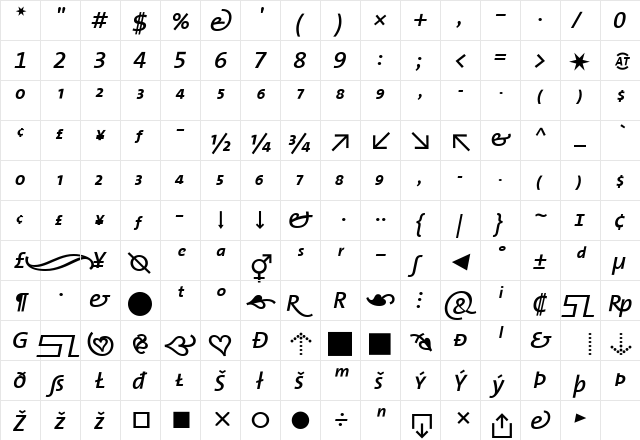
TheSans SemiBold Italic
SemiBold Italic · Copr. Luc as de Groot  ·
Design Context for TheSans Typeface
TheSans offers clean, dependable letterforms without strong stylistic allegiance, making it a practical choice for designers who need flexibility. The dynamic lean of this cut emphasises speed and emphasis in any layout. Its bold stroke weight gives it real presence on the page.